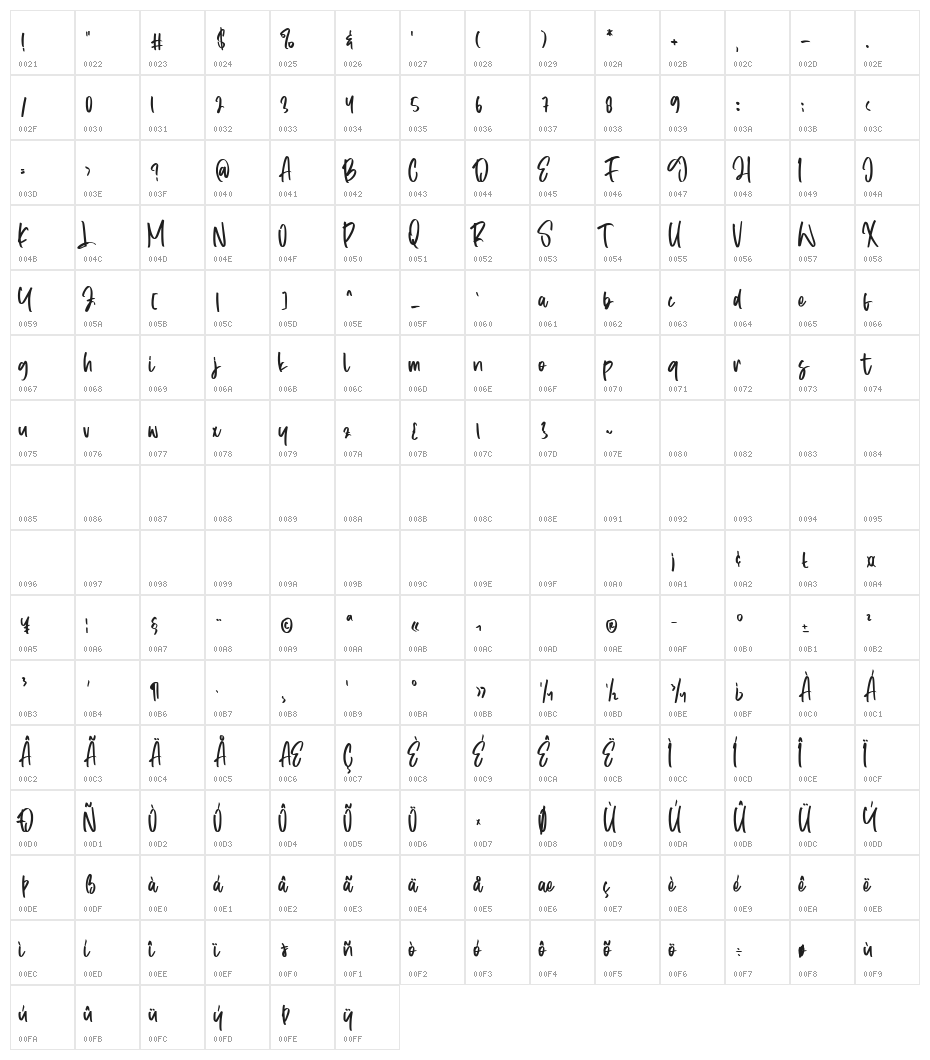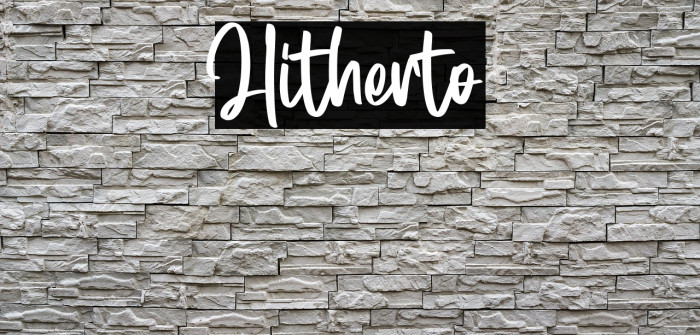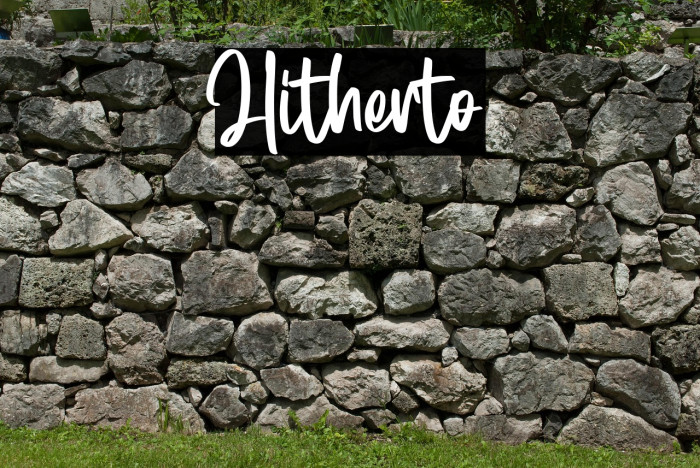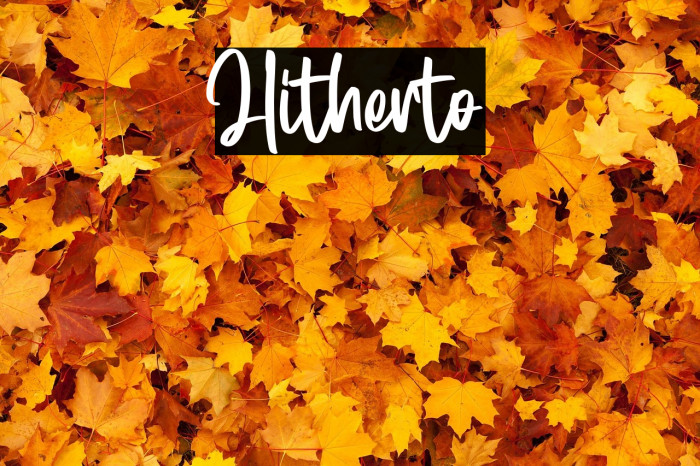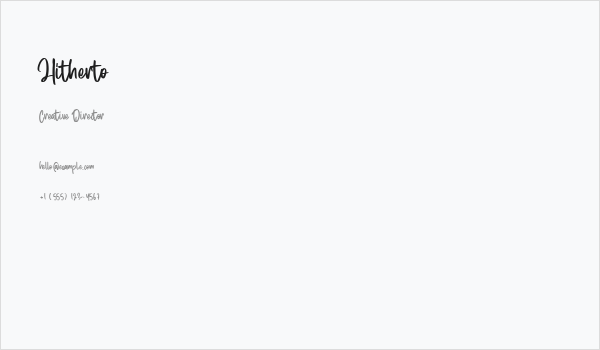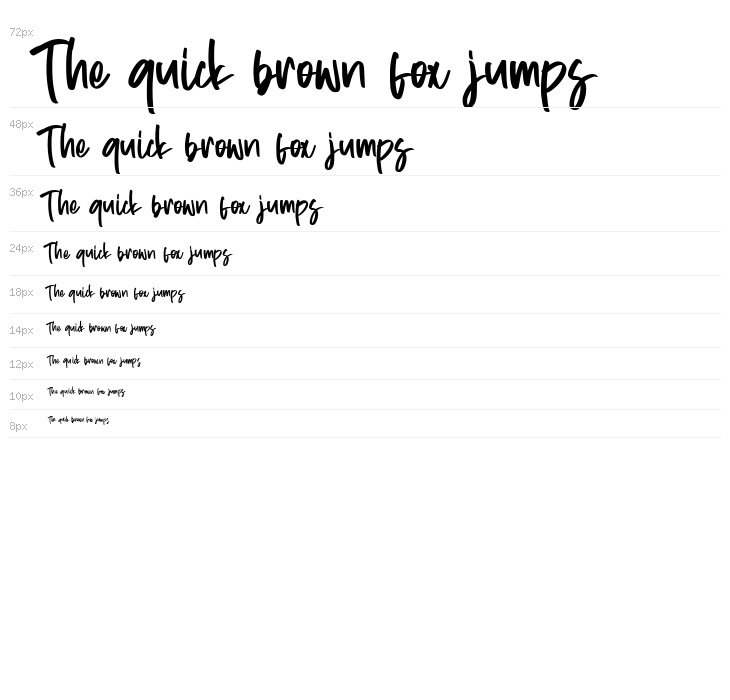
Hitherto Font
Hitherto Description
A bold, handwritten script font with a playful and casual style, featuring smooth curves and varying stroke widths.
| Proposed Projects | Greeting cards, invitations, logos, social media graphics. |